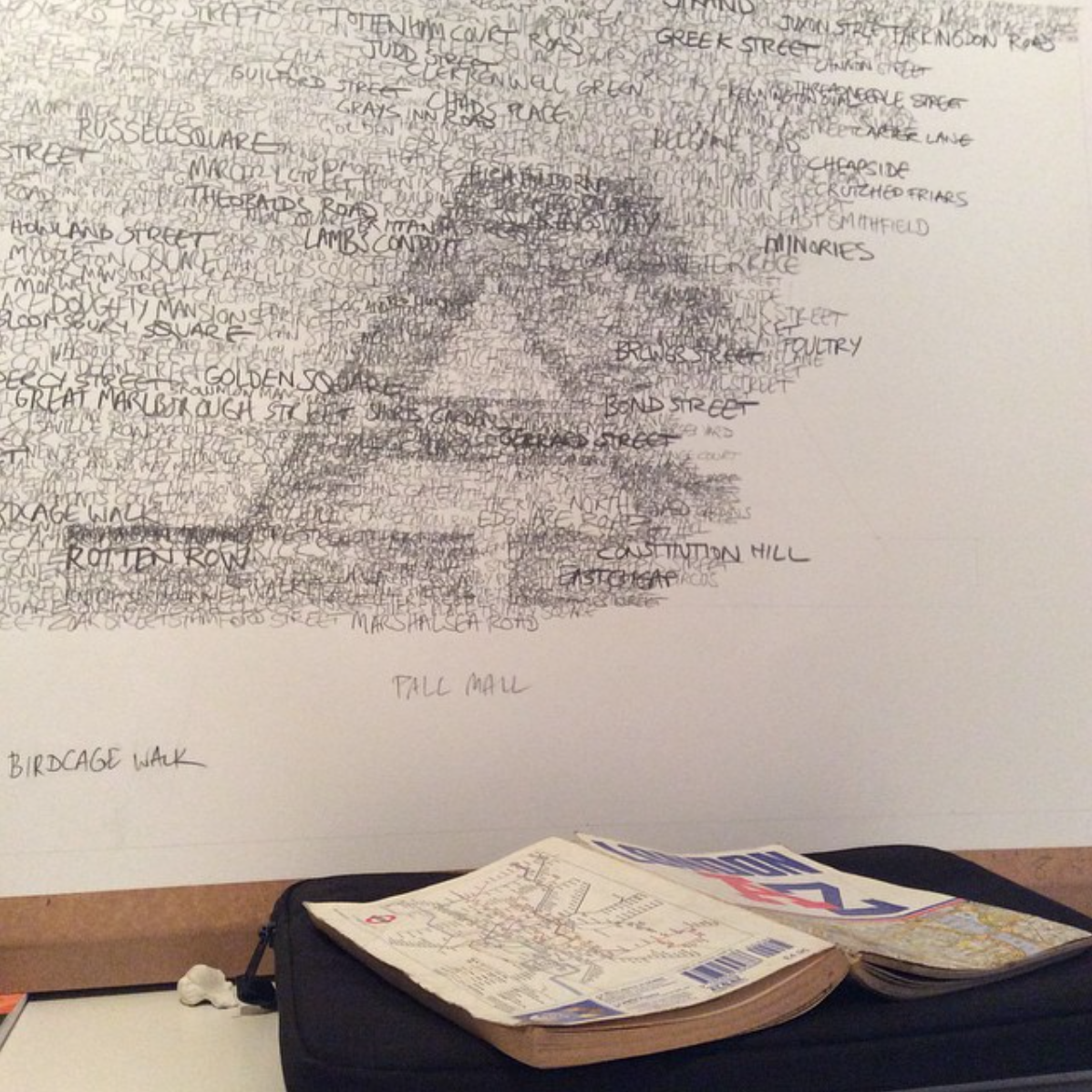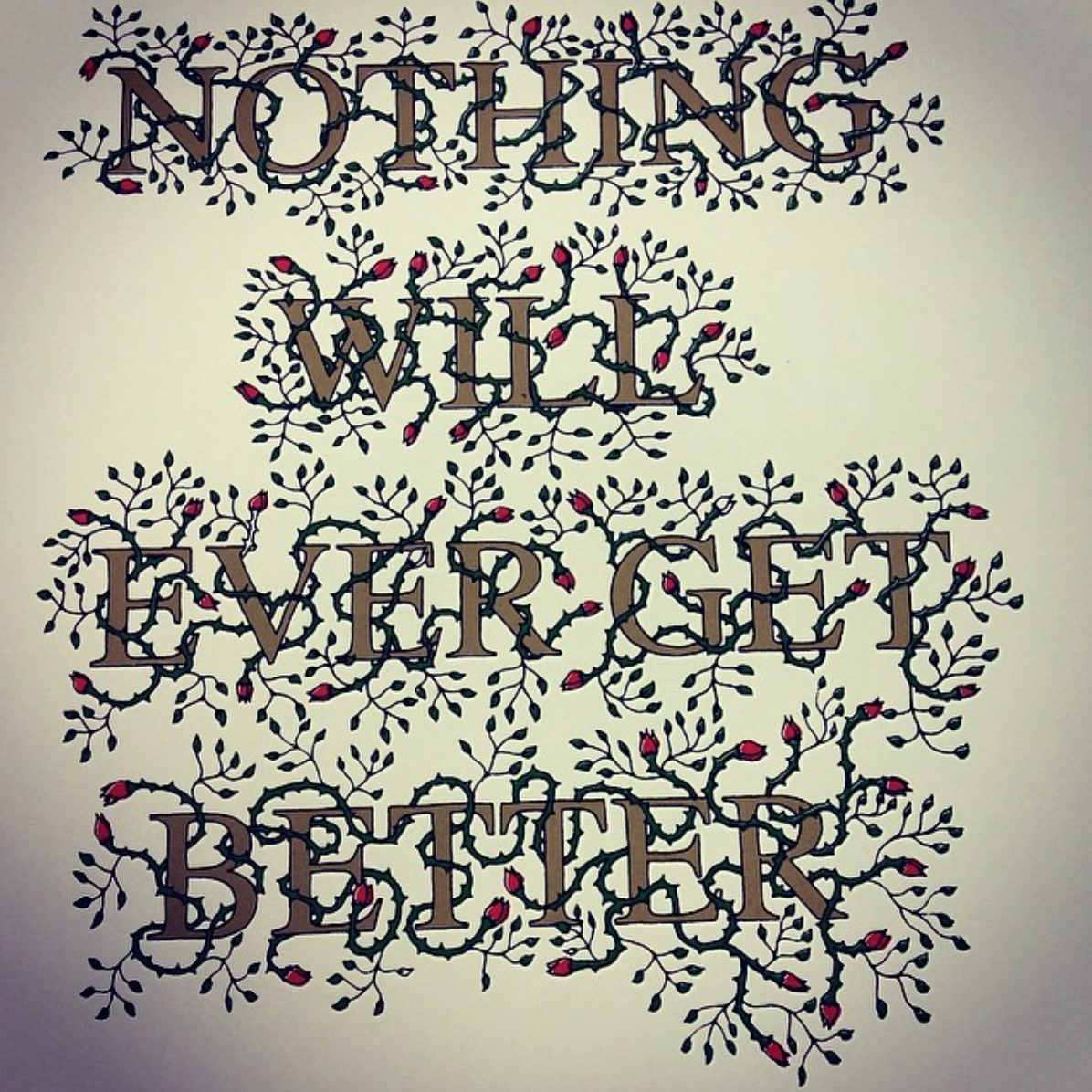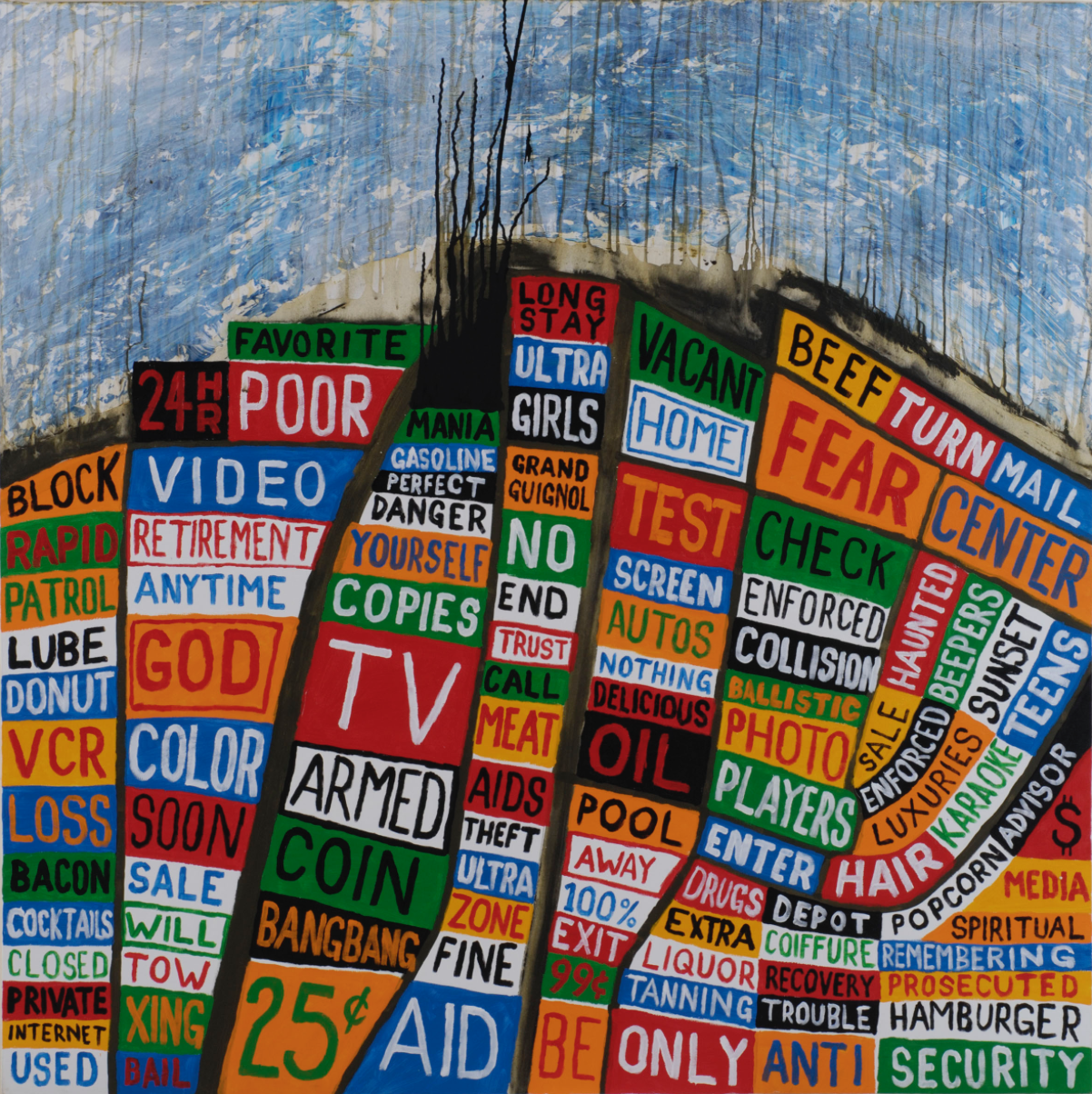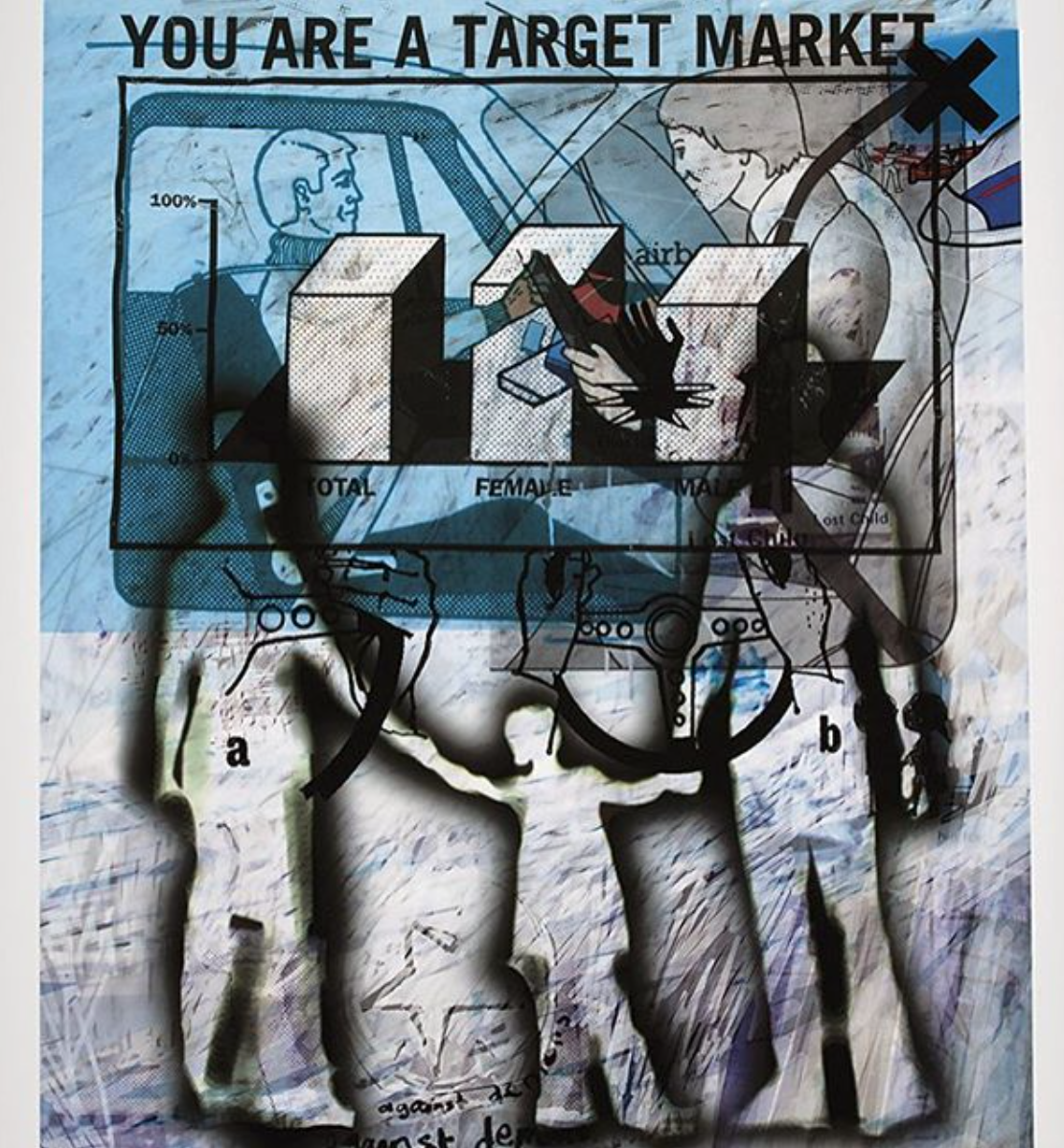
Lettering Legend - Stanley Donwood Interview
Stanley Donwood is an artist with an array of different creative skills. He is very well known for producing all of the album artwork used by the band Radiohead. He's had a few books published, including a graphic novel which he made in a month to win a five pound bet. Stanley has used both hand lettering and digital lettering in a lot of his work over the years, he is uniquely talented and most deserving of the title 'Lettering Legend'.
One of the main reasons I wanted to feature Stanley is because he has taken lettering and used it within a different realm to what we're used to seeing. Most of the work we see within the hand lettering world contains just letters alone on a page, with the main focus being the lettering, or there may be a small illustration to support the lettering. Whereas within a lot of the work Stanley has made, letters and lettering only make up a part of the final composition not all of it. He incorporates other techniques and uses alternative tools and materials to create an overall image. So I invite you to think about how you can approach your own lettering work differently, and how you can challenge yourself to use new options that you might not have previously explored.
Stanley discusses how to craft a lettering piece containing a lot of words, how he adapts to tools and more in the interview below.
You can leave one significant message for future generations that will withstand the test of time, how would you letter and present it, and what would the message be?
"Somewhere in northern Scandinavia they built a deep level repository for extremely dangerous radioactive waste. They considered for some time what message of warning to leave to guard against its being disturbed, bearing in mind that the waste would be deadly for millennia. In the end they decided that any message or sign of any kind would only intrigue future generations, who might unwittingly open this terrible Pandora's box. So nothing was left. That is what I would wish to leave. Nothing."
Often with lettering the recommendation is not to use more than ten - twelve words in a piece, as it can become difficult to create a good composition. In your Pacific Coast and Santa Monica pieces you incorporated a remarkable amount of lettering, and produced fantastic pieces of art. What were the steps involved in planning and creating pieces containing so much lettering?
"I treated the canvas as real estate (as they call it in the USA) and just kept building until there was no space left. Like a city. It was not designed at all. My rule was that colours can't be repeated next to each other. Each was based on the map of a city that had some connection with the war against terror."
With many pieces of your artwork you could just use imagery to tell a story or portray a message to the viewer. Instead on occasion you incorporate lettering too, what do you find are the benefits of incorporating lettering into your work?
"I've always liked to combine words and pictures, probably because I'm not especially good at either. I used to really like work that combined the two, like adverts or comic books or packaging or magazines. And artists like Victor Burgin, Jenny Holzer, Barbara Kruger and so on. But now I'm quite old I'm beginning to like art without words."
You’re a man of many tools, what different tools and equipment have you used to create lettering within your projects, and what are your favourites to use?
"I don't know. Once something starts to look kind of ok I don't really care what it is I'm using. At the moment I'm using scalpels to make lettering, very crudely, as if I was in a hurry or was worried about getting caught."
Do you think there are specific fine art skills that can be applied to creating lettering?
"Not really. The best thing is practice and perhaps a childhood without much money but lots of paper and pencils."
Is it best to be comfortable at lots of different styles of lettering or develop your own style?
"I really don't know. I suppose once you get to be ok at doing one style you can always have that up your sleeve. So maybe it's a good idea to keep trying new things, as even if you f**k up you've still got the old stuff to fall back on. And if you're lucky the new stuff will be better."
What advice or tips would you give those first starting out at lettering?
"Doodling is the best thing."